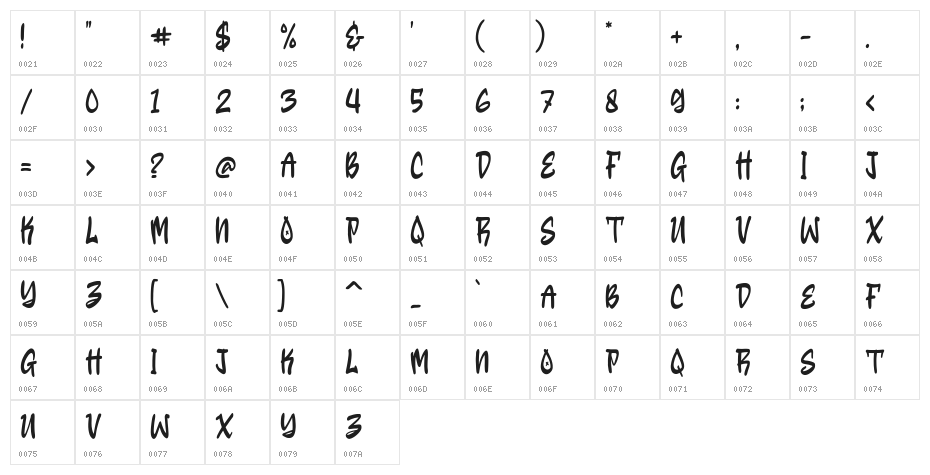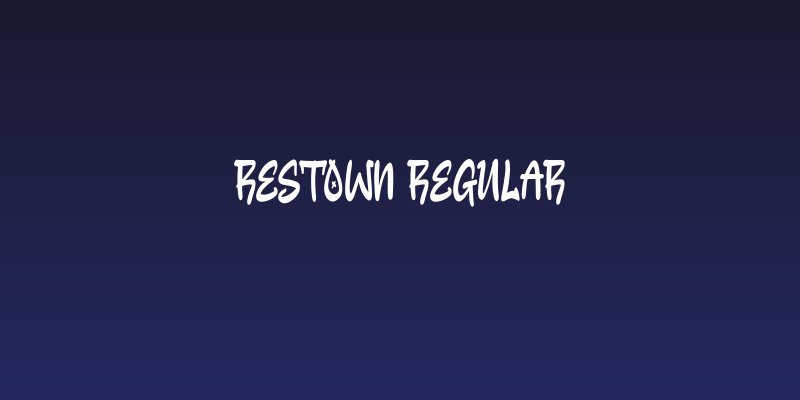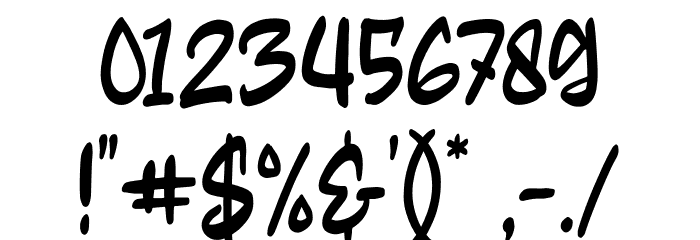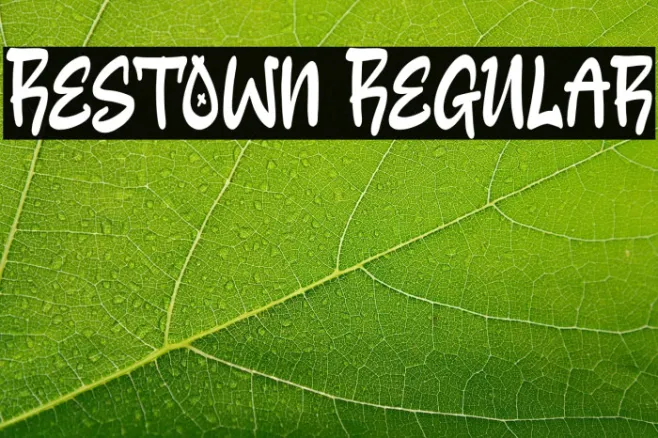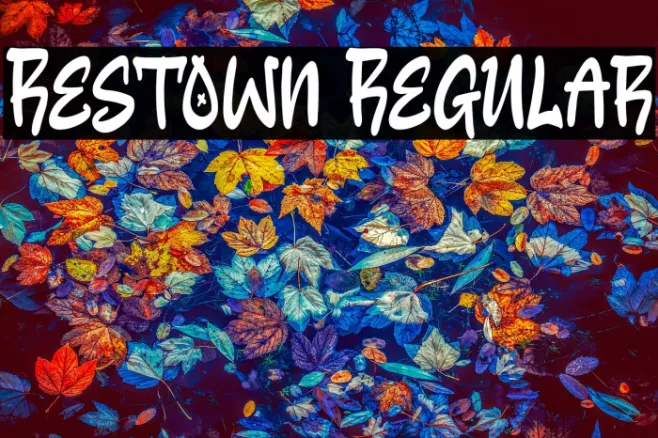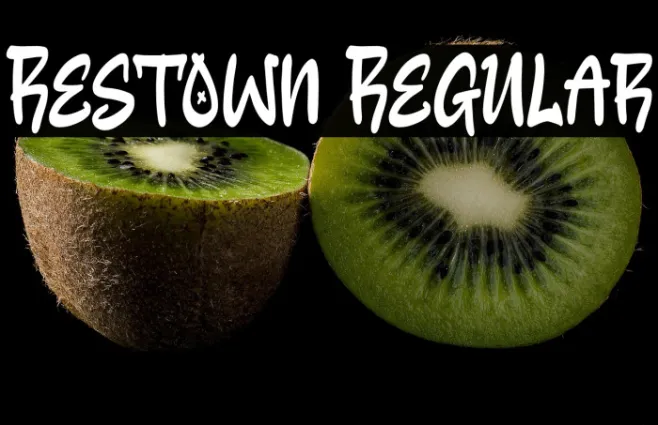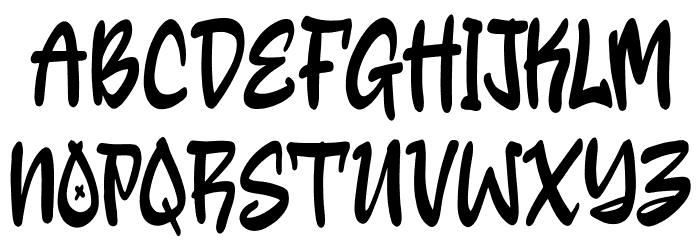
Restown Regular Font
Restown Regular Description
This font features a bold and dynamic handwritten style, characterized by its thick strokes and playful curves. The letters are slightly slanted, giving a sense of movement and energy. Each character is distinct, with unique flourishes that add personality and charm. The uppercase and lowercase letters maintain a consistent style, while the numerals and special characters integrate seamlessly. This font is designed to capture attention and convey a sense of fun and creativity, making it ideal for projects that require a lively and engaging aesthetic.